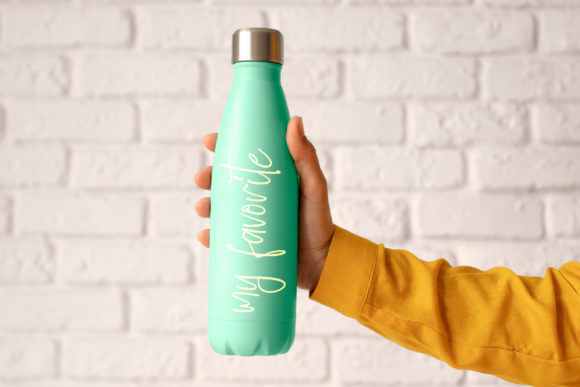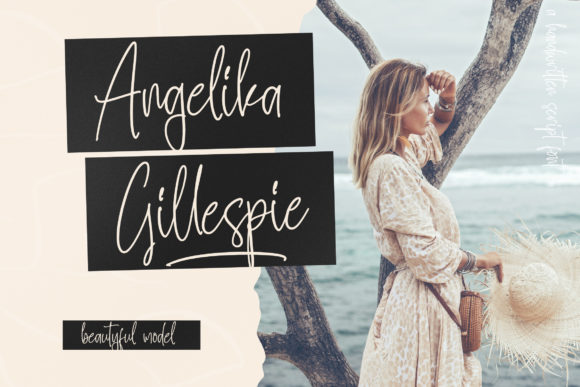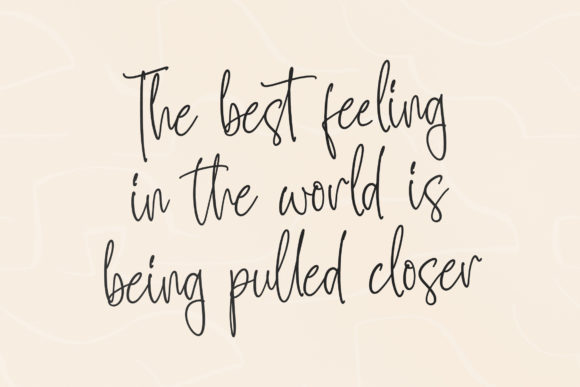
Introduction to Midthome Font
Have you ever been working on a creative project, pouring your heart and soul into the details, and then suddenly, the perfect font comes along and makes everything pop? That’s exactly what happened to me when I stumbled upon the Midthome Font. This splendid script font has been a game-changer for designers looking to add a touch of elegance to their work.
With its high-quality design and transparent background, the Midthome Font is a versatile resource that can be used for a wide range of projects, from logos and branding to homeware designs and product packaging. And the best part? It’s available for free download, making it an invaluable asset for designers on a budget.
Whether you’re working on a creative project or just need a beautiful script font to elevate your design, the Midthome Font is an excellent choice. Its value lies in its ability to add a touch of sophistication and class to any project, making it a must-have resource for designers looking to take their work to the next level.
Key Features of Midthome Font
- High-quality font with a unique, modern design suitable for various creative projects, including logos, branding, and digital art.
- Transparent background, allowing for seamless blending with any image or background.
- Designed to be highly legible, with clear and crisp lines that make it perfect for use in a variety of sizes and resolutions.
- Includes a wide range of characters, including uppercase and lowercase letters, numbers, and punctuation marks, making it a versatile design resource.
- Available in a range of sizes, from 12pt to 72pt, with a resolution of 300 DPI, making it suitable for use in high-quality prints and digital displays.
Honest Review: Midthome Font
As a designer, I’m always on the lookout for high-quality design resources that can elevate my creative projects. Recently, I stumbled upon the Midthome Font, and I’m excited to share my honest review with you.
- ✨ High-quality typography: The Midthome Font boasts a clean, modern design that’s perfect for a wide range of creative projects.
- ✨ Versatility: This font is incredibly versatile, suitable for both digital and print-based projects, making it a great addition to any design library.
- ⚠️ Limited languages support: The Midthome Font only supports a limited number of languages, which may be a concern for designers working on projects that require multilingual support.
- ⚠️ No transparent background: Unlike some other fonts, the Midthome Font doesn’t offer a transparent background option, which may limit its use in certain design scenarios.
Overall, the Midthome Font is a solid addition to any designer’s toolkit. Its high-quality typography, versatility, and free download make it a great resource for creative projects. While it may have some limitations, it’s definitely worth considering for your next design project.
The Midthome Font is ideal for creative projects, such as branding, logos, and marketing materials. Its high quality and versatility make it a great resource for designers, and its free download makes it accessible to anyone.